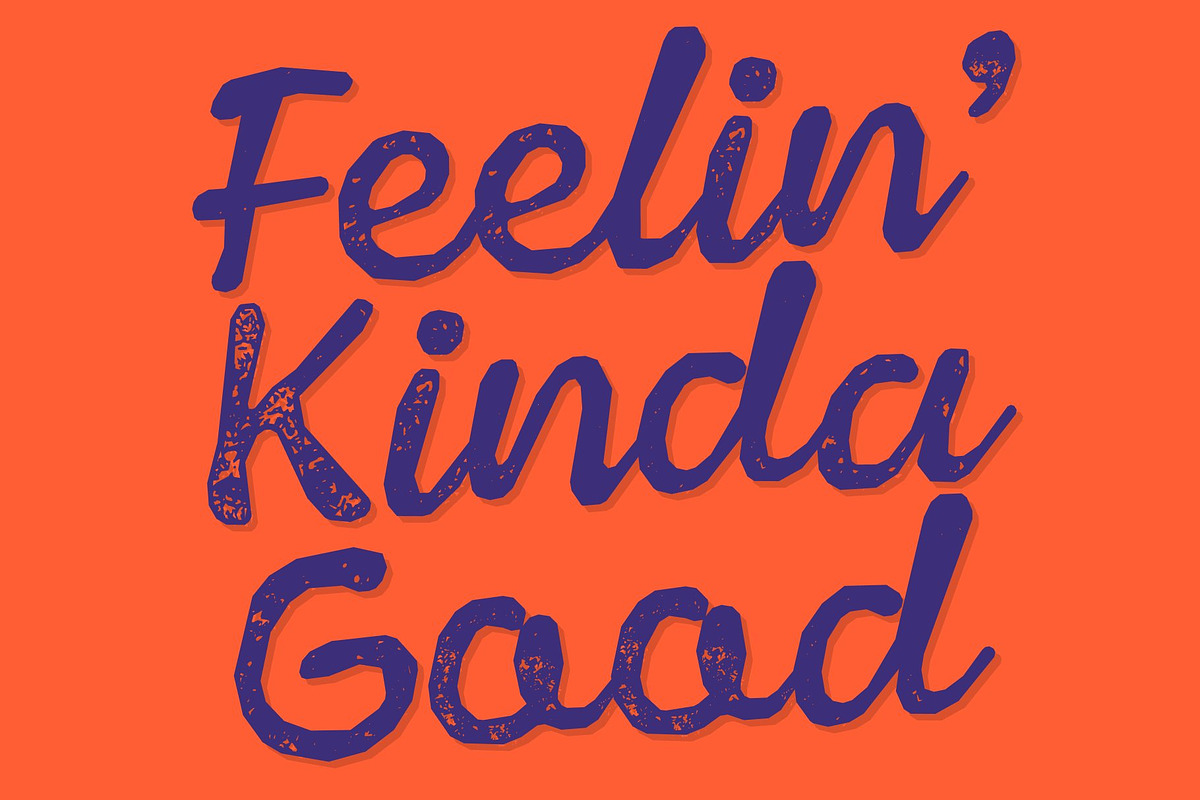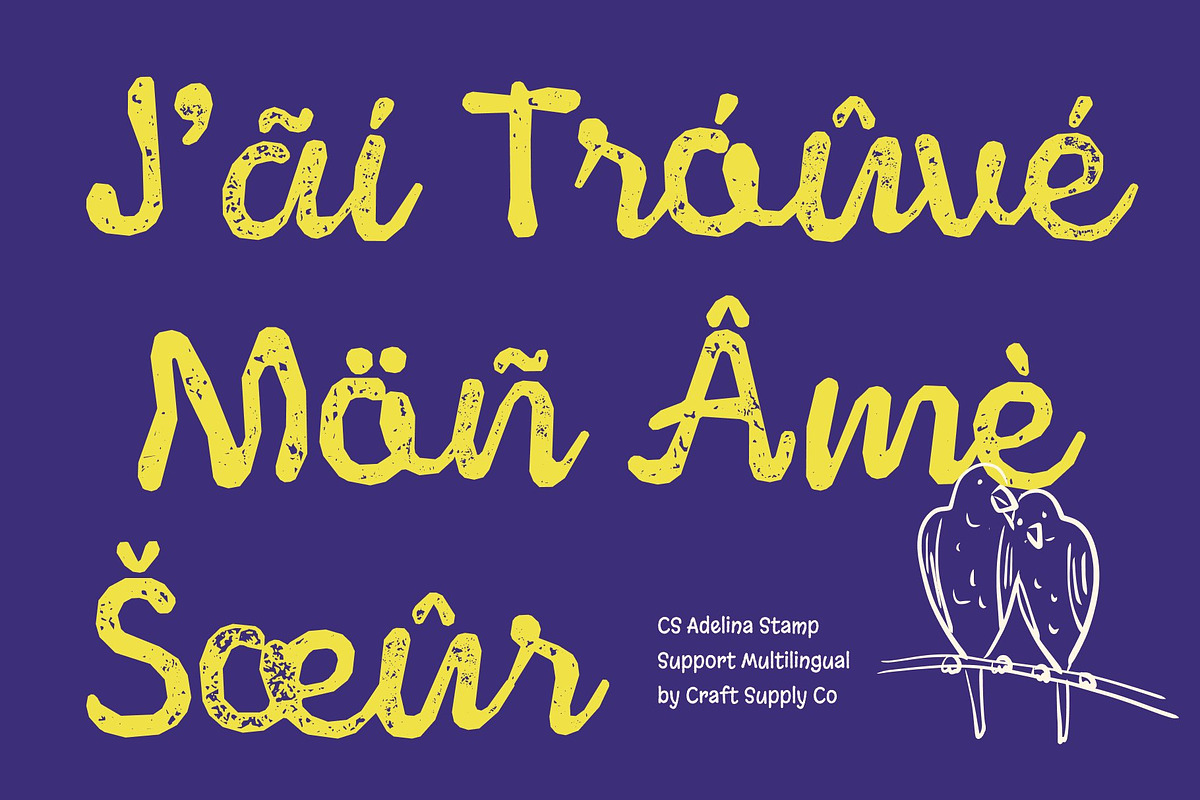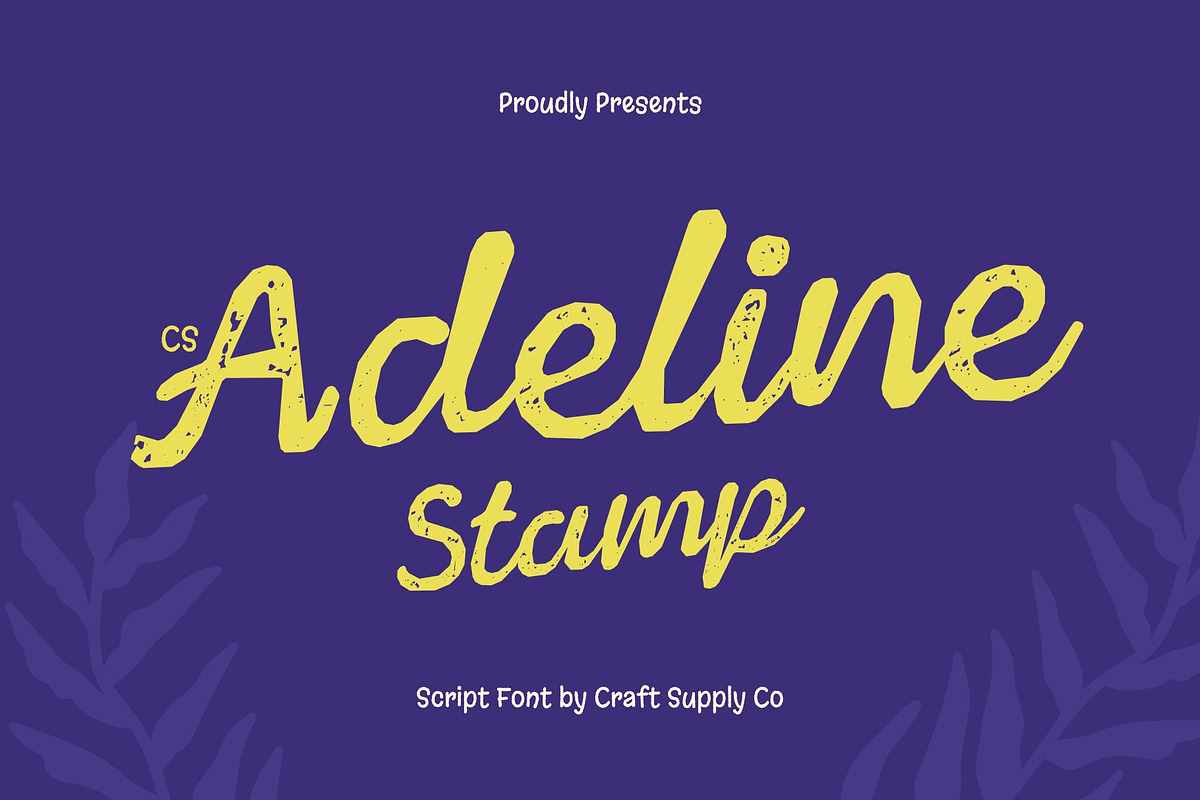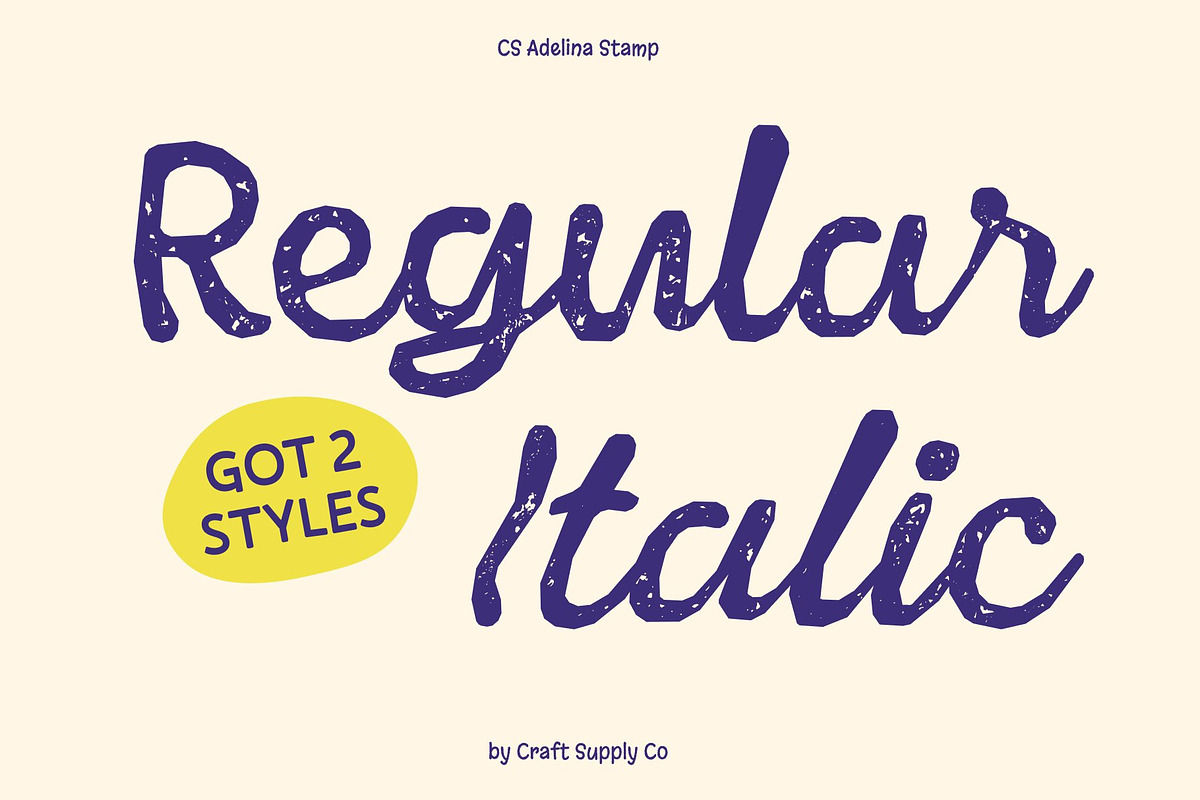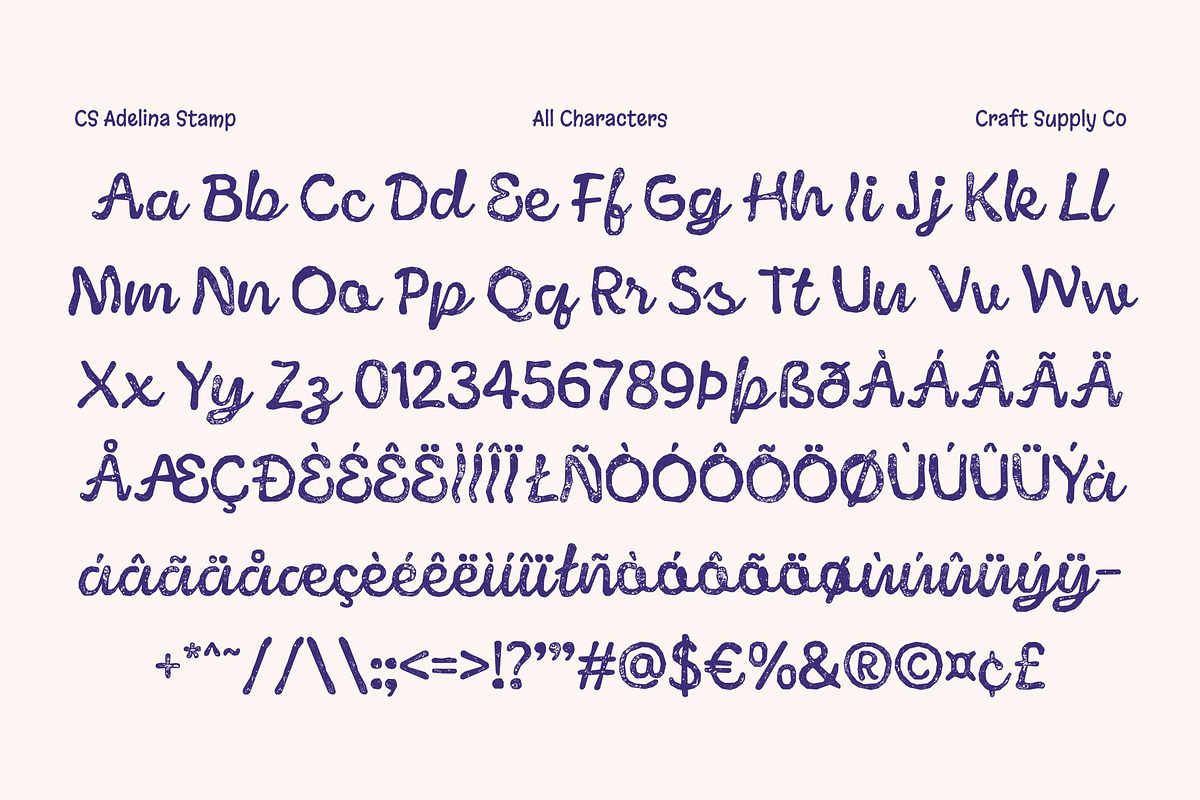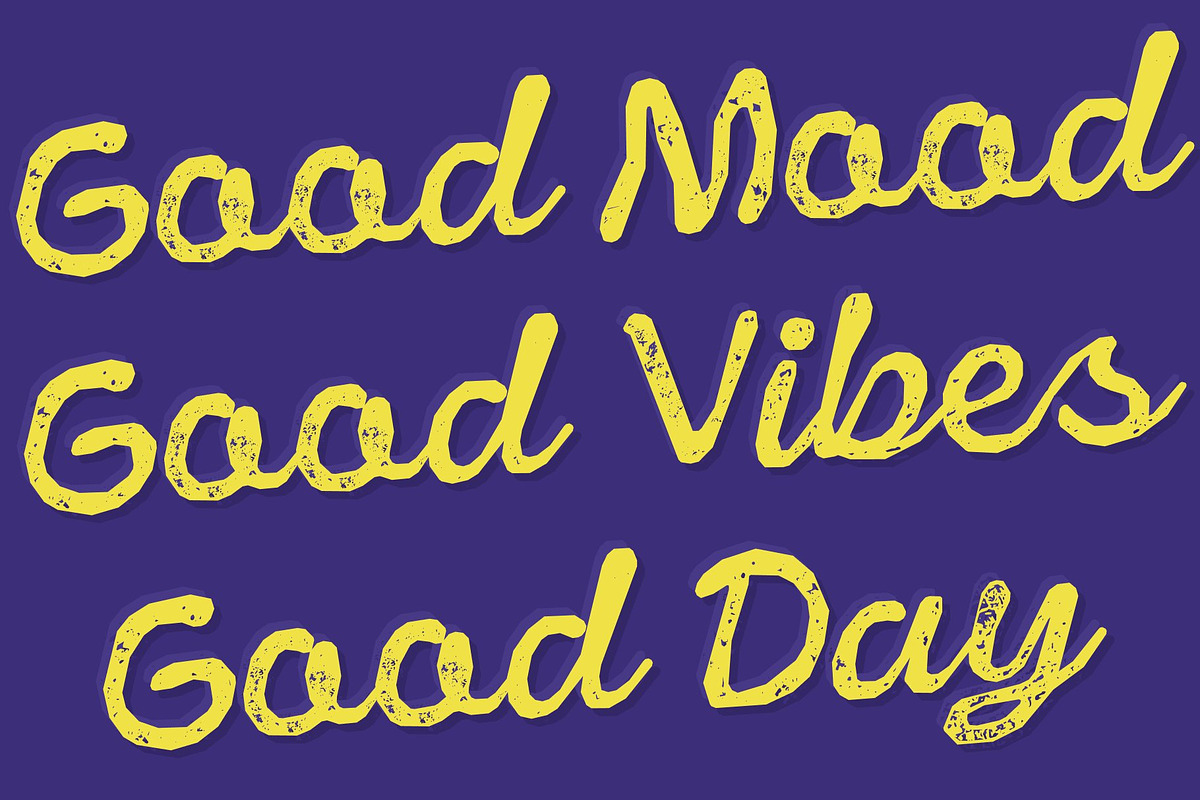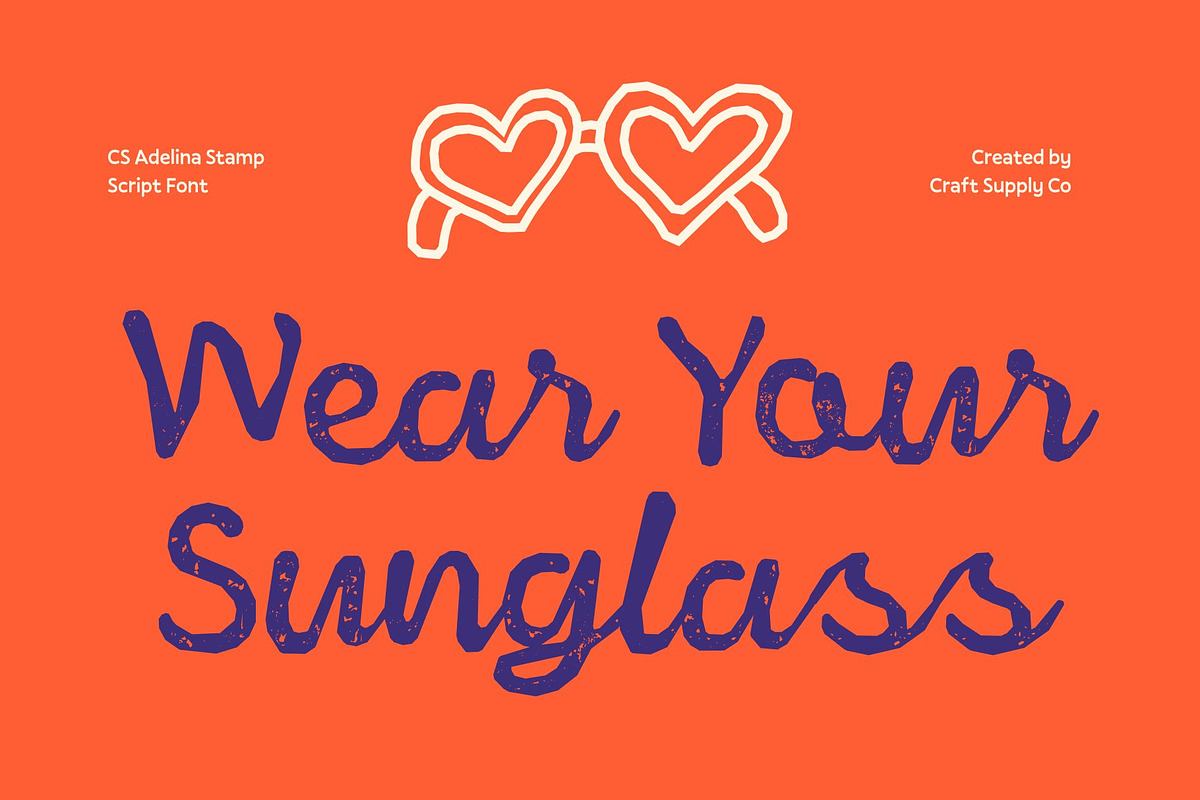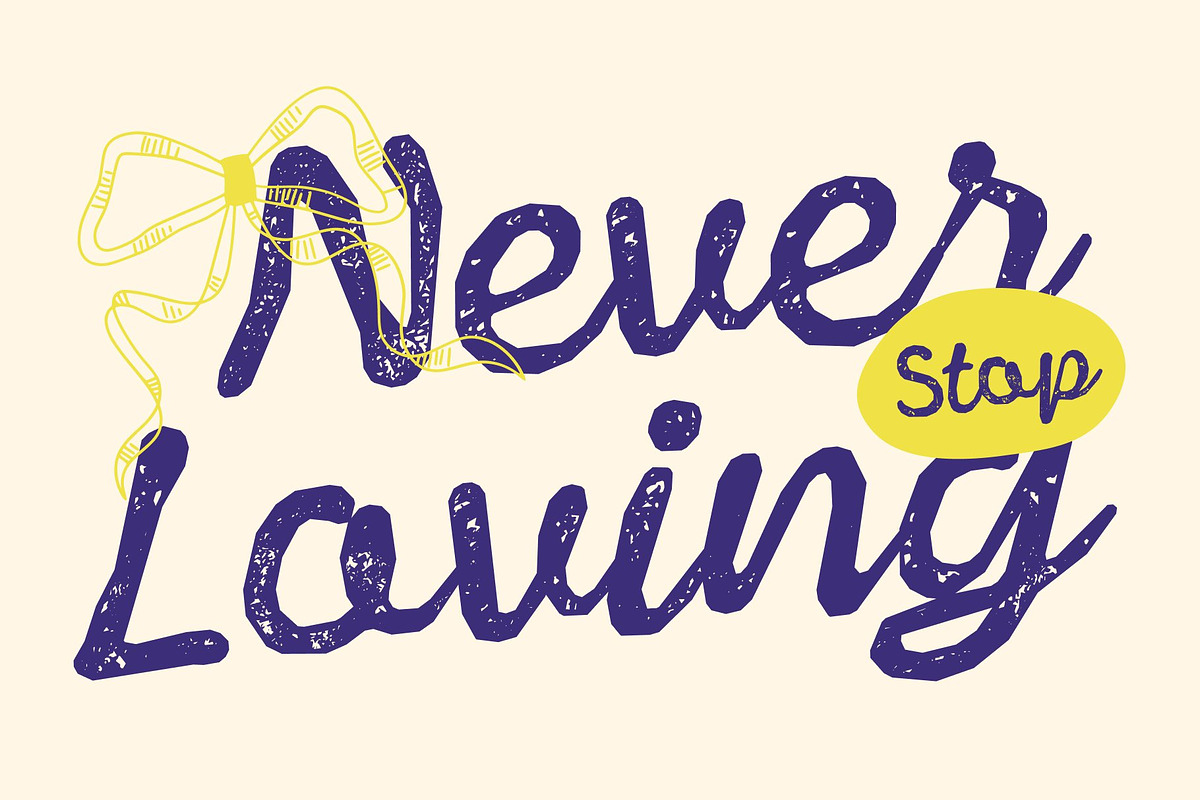
CS Adelina Stamp
CS Adelina Stamp – Graceful Script with Vintage Artistic Elegance Stylish, Feminine, and Beautifully Textured This is a modern script font infused with a distinctive stamp effect that introduces vintage character and artistic depth. Its smooth, flowing strokes remain elegant and feminine, while the textured, slightly worn finish adds warmth, authenticity, and timeless charm. The result is a beautifully balanced script that feels expressive, handcrafted, and full of personality.
Modern Script Meets Vintage Stamp Aesthetic Rooted in contemporary calligraphic style, blends clean curves with subtle imperfections inspired by traditional stamping techniques. The stamped texture creates a nostalgic, old-design feel slightly rough, organic, and visually rich without sacrificing clarity. This fusion of modern elegance and vintage texture gives the font a unique, artistic presence.
Romantic Elegance with Old-World Charm Perfect for wedding stationery, beauty branding, artisanal packaging, labels, and boutique logos, this font elevates designs with romantic sophistication and a classic touch. The stamp effect adds emotional warmth and character, making each word feel personal, crafted, and timeless.
Versatile Script for Artistic and Vintage-Inspired Designs Whether used for luxury logos, signature-style headlines, retro-inspired editorials, or handcrafted branding, this font adapts beautifully to designs that celebrate elegance with a vintage soul. It’s an ideal choice for creatives seeking a script font that combines graceful beauty, artistic texture, and nostalgic appeal in one refined package.